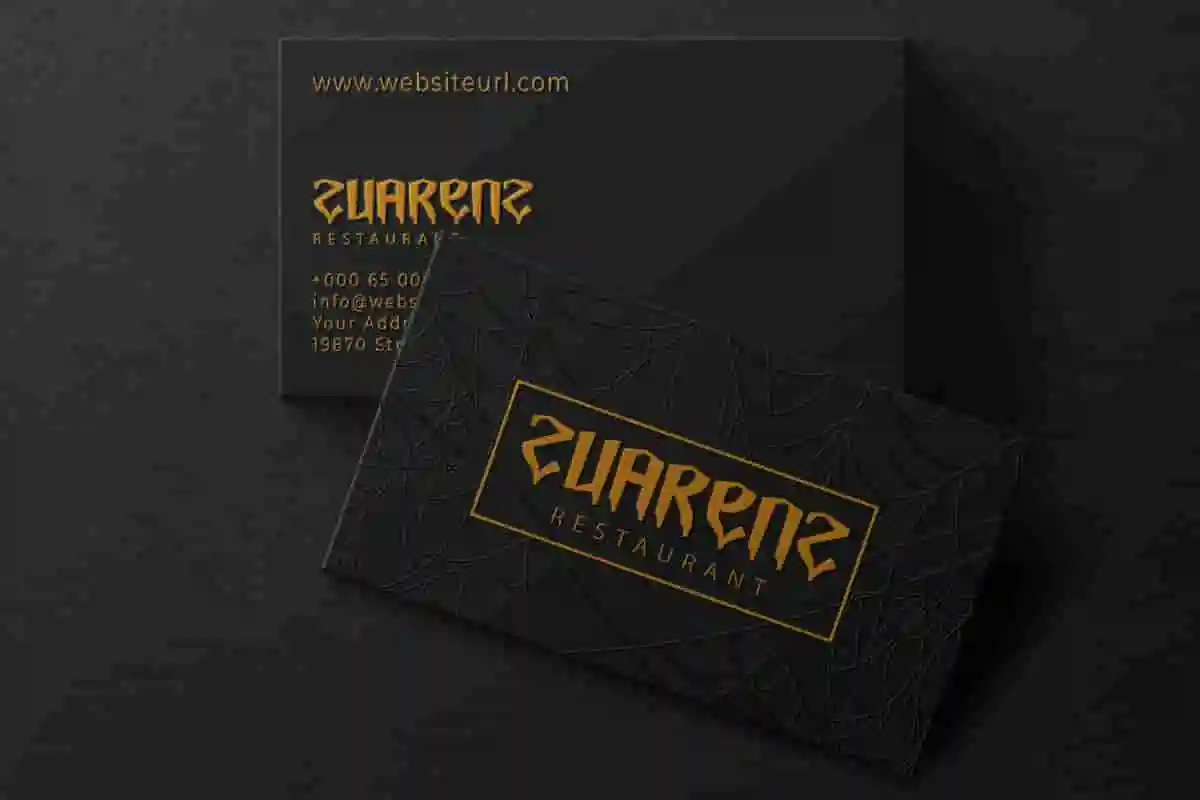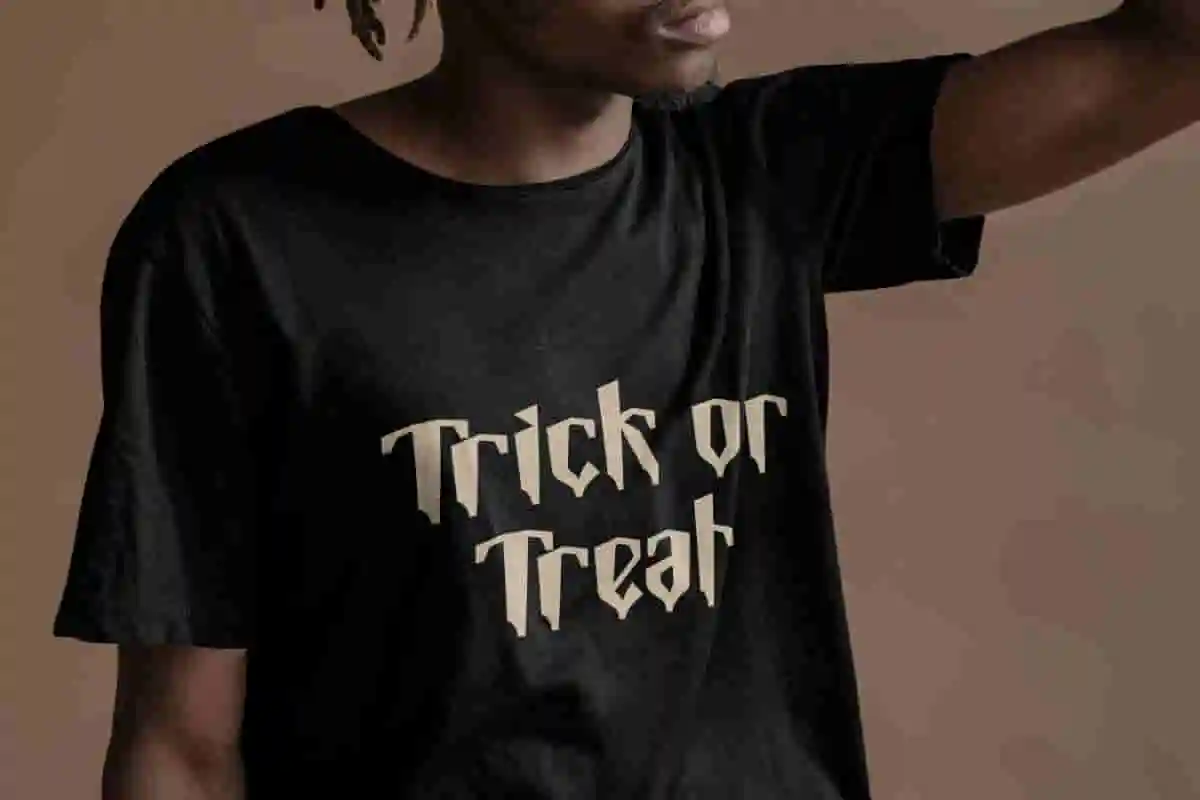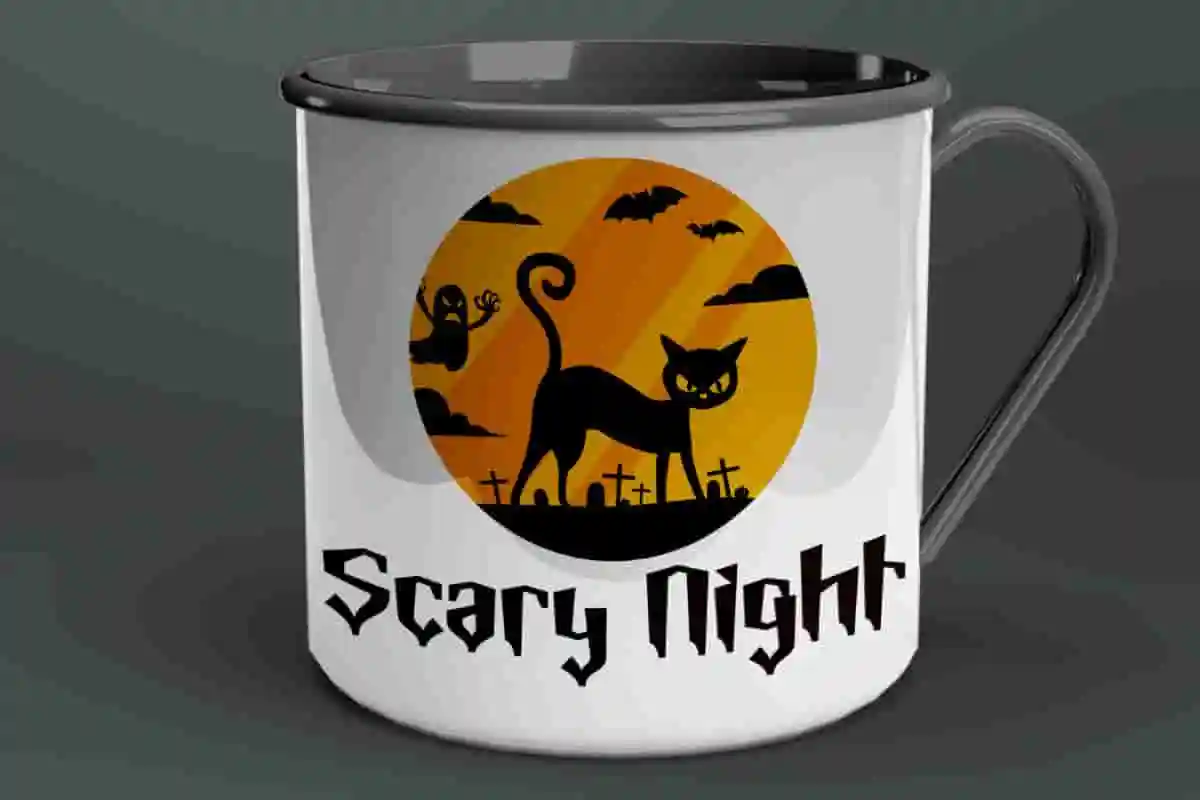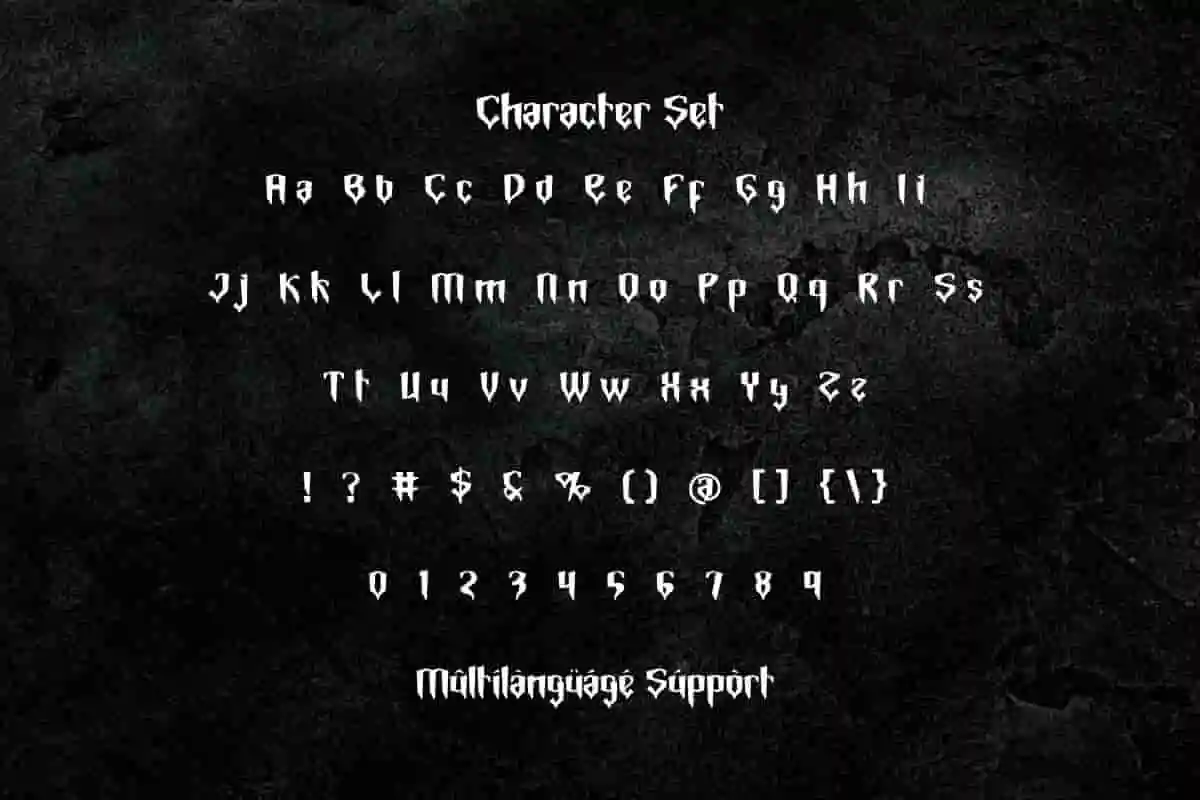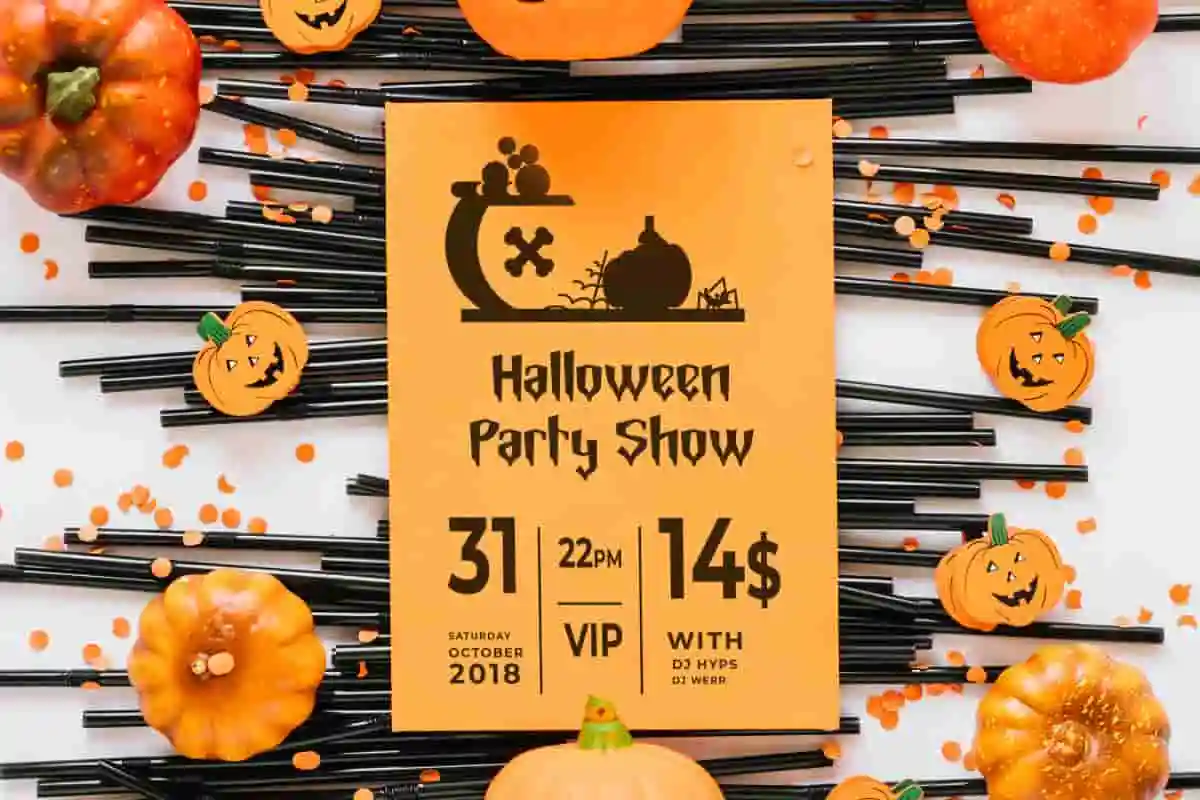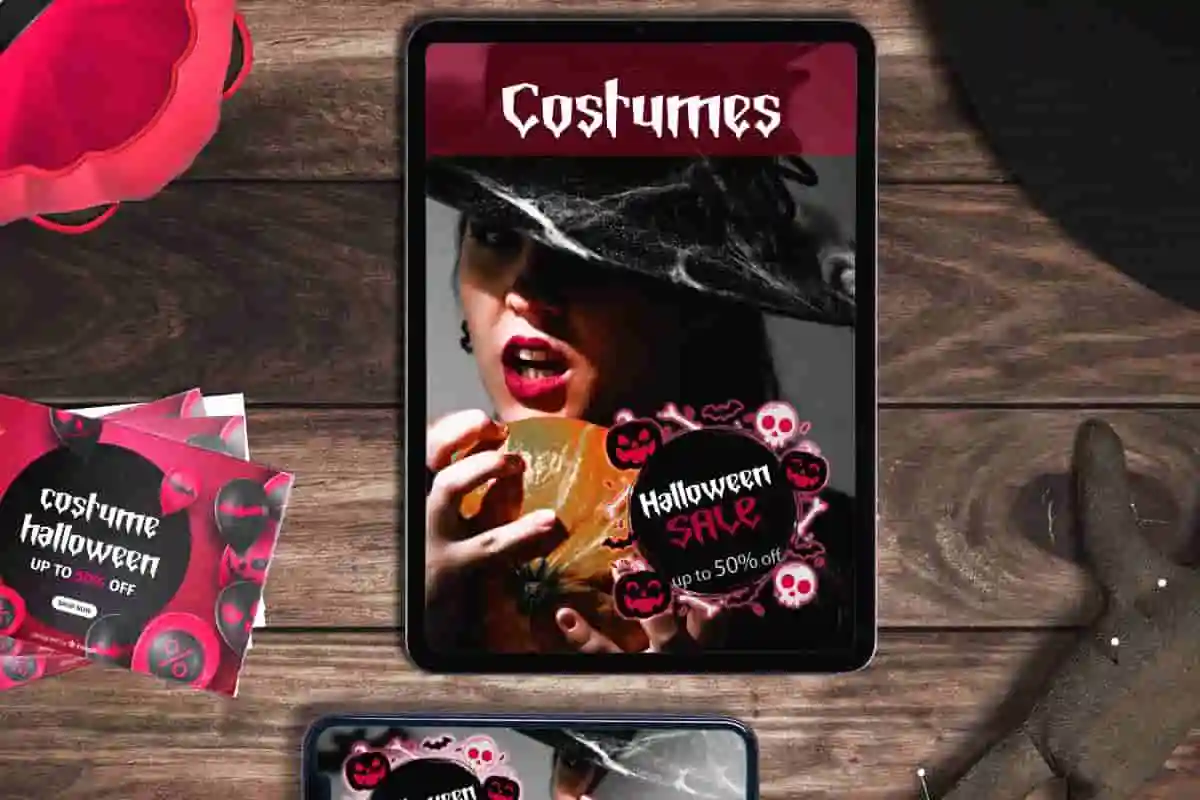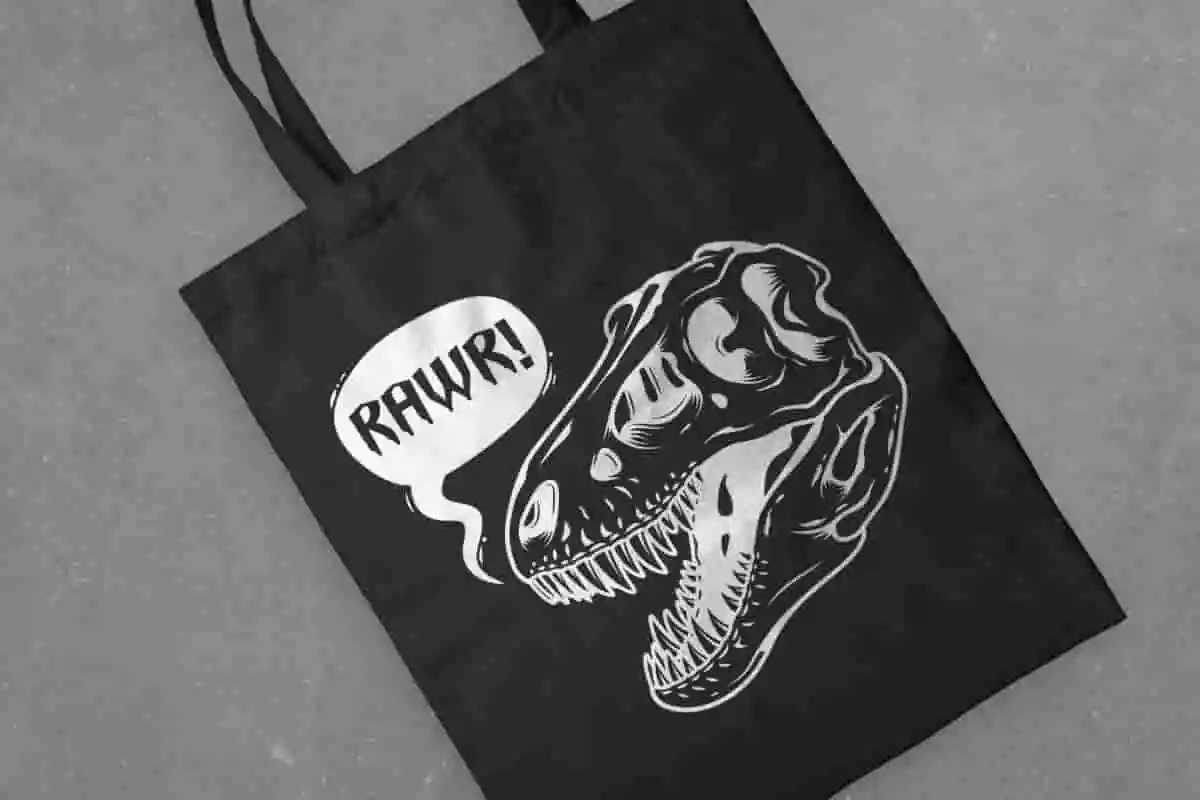
Horror Comics Display Font
Horror Comics Font is a unique display font with mysterious horror and vampire theme. Get ready to see the unique things that make you goosebumps in each characters! This will work fine for anything related to horror themes.
Horror Comics Font is a unique display font with mysterious horror and vampire genre. It has a unique feel which makes it suitable for any industry, such as accessories, advertisement, amusement park, artist, author, café, comics, clothing brand, event or festival just like Halloween, fashion designer, film, furniture, games, handicrafts, merchandise, movie, musician, printing, publishing, restaurant, writer, etc.
Are you ready to inject your horror projects with a font that screams fear and excitement? Introducing Horror Comics Display Font — a daring and dramatic display font inspired by the chilling aesthetics of classic horror comics. This font combines jagged edges, rough textures, and bold strokes to create a truly frightening atmosphere that grabs attention instantly.
Are you ready to make your horror-themed projects truly spine-chilling? Introducing Horror Comics Display Font, the perfect display font that blends eerie vibes with comic-style boldness. This font is designed to captivate and terrify at the same time, making it ideal for graphic novels, posters, game titles, and all your spooky creative needs. Inspired by classic horror comics and the unsettling ambiance of dark tales, Horror Comics Display Font features sharp edges, jagged lines, and bold strokes that command attention.
Step into the shadows with Horror Comics Display Font, a bold and edgy display font crafted to deliver maximum impact for your spooky projects. Whether you’re designing comic books, horror posters, game titles, or chilling event flyers, this font brings an unmistakable eerie comic vibe that grabs attention instantly. Designed with jagged edges and sharp angles, Horror Comics Display Font captures the essence of classic horror comics while adding a modern twist.
- Distinct Horror Comic Look
Horror Comics Font is a font that will appeal to its audience, ready to grip anyone into your creative projects, such as apps, billboard, brand logo, brochure, business card, catalog, cover, embossed design, flyer, header, label, menu pamphlet, mockup design, packaging design, poster, quotes, screen print, signage, stationery, sticker, title, watermark, website, and many more.